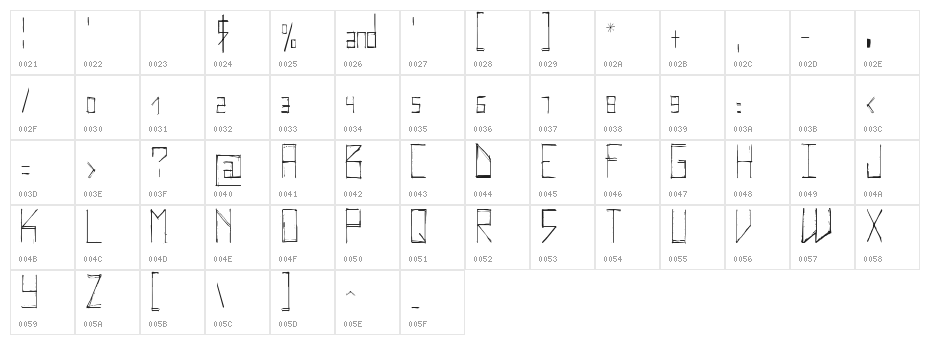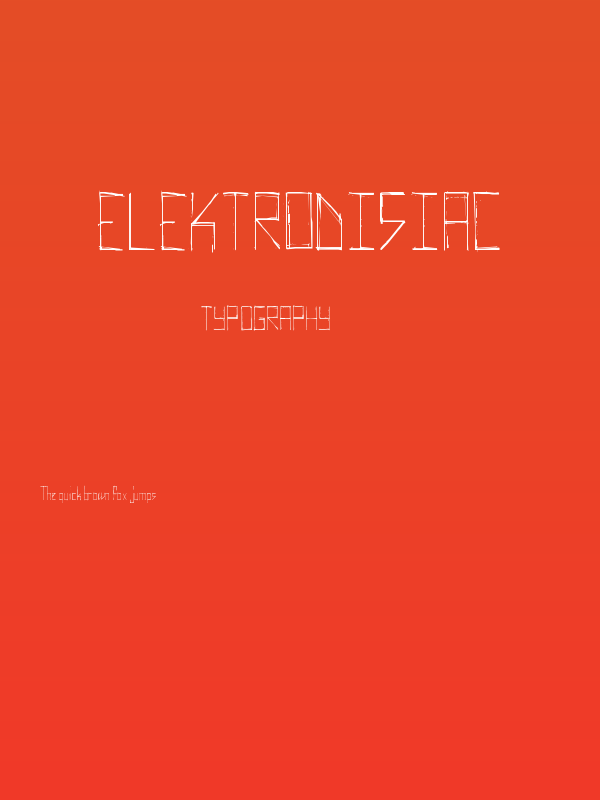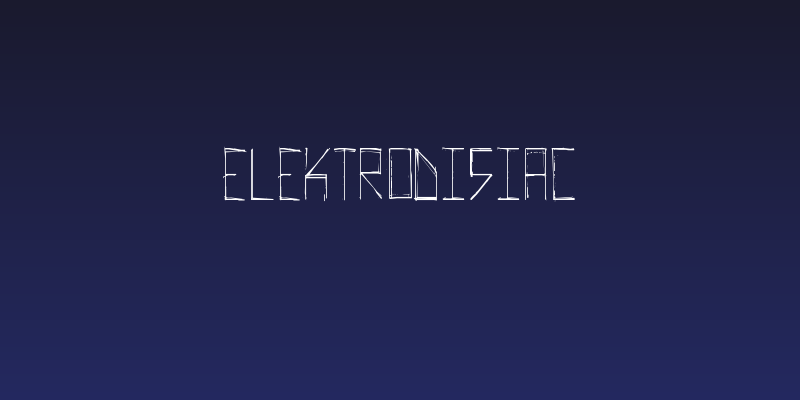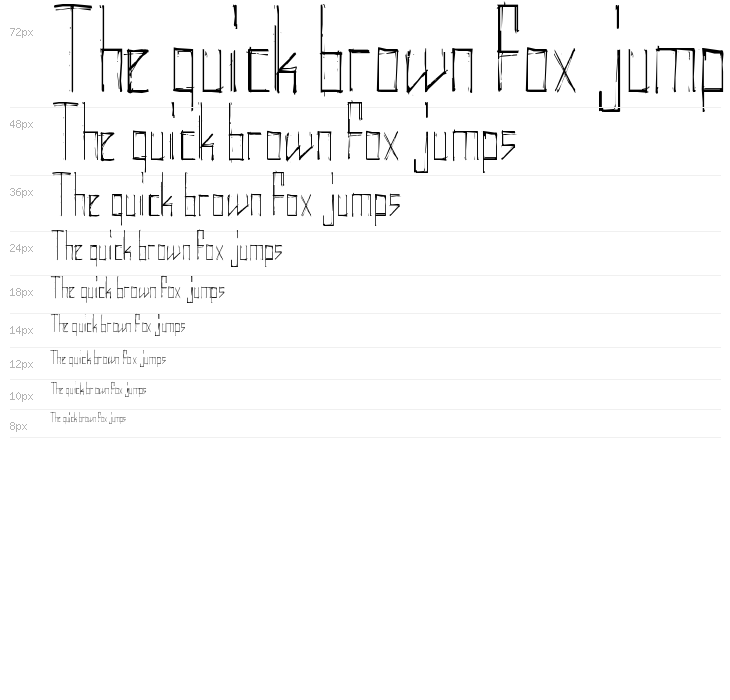
elektrodisiac Font
elektrodisiac Description
This font features a unique, hand-drawn style with a modern, edgy appearance. The characters are constructed with thin, uneven strokes that give a sketch-like quality, adding a sense of dynamism and creativity. The uppercase letters are angular and geometric, while the lowercase letters maintain a consistent height, providing a balanced look. Numbers and special characters follow the same design principles, ensuring uniformity across all glyphs. This font's distinctive style makes it suitable for projects that require a bold, artistic touch.